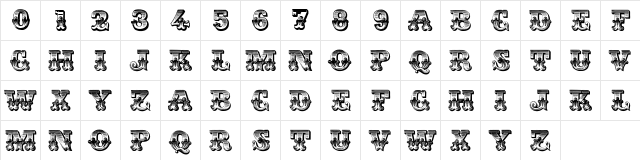
Romantiques Regular
| Designer | Dieter Steffmann |
Design Context for Romantiques Typeface
Romantiques wears its vintage influences proudly, with letterforms that recall mid-century signage, classic packaging, and nostalgia-driven design.
Font Pairing: Combine Romantiques with a simple slab or neutral sans — period-accurate companions reinforce the vintage feel without competing for attention.
Pro Tip: Use Romantiques for headlines and pull quotes rather than body copy — its personality is best appreciated in short, focused bursts.